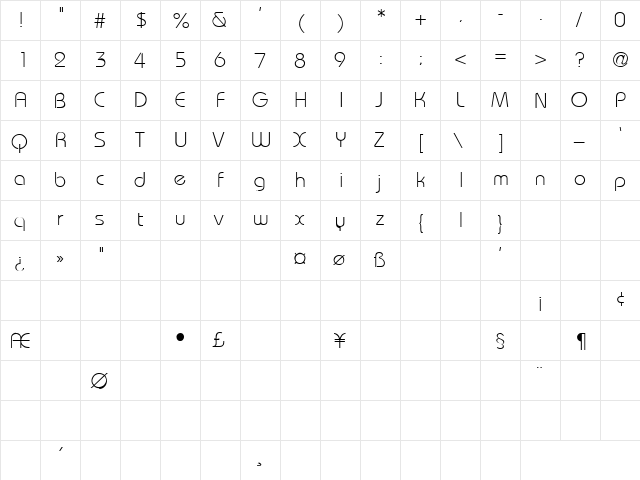
China Grove 10 Regular Font Preview
China Grove 10 Regular
Design Context for China Grove 10 Typeface
China Grove 10 takes a measured approach to typography — its balanced proportions and neutral character make it a reliable workhorse for both digital and print work.